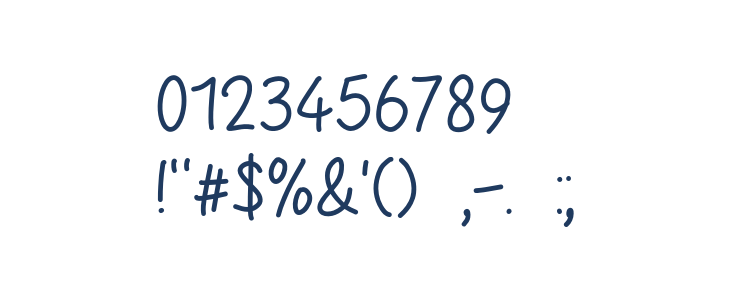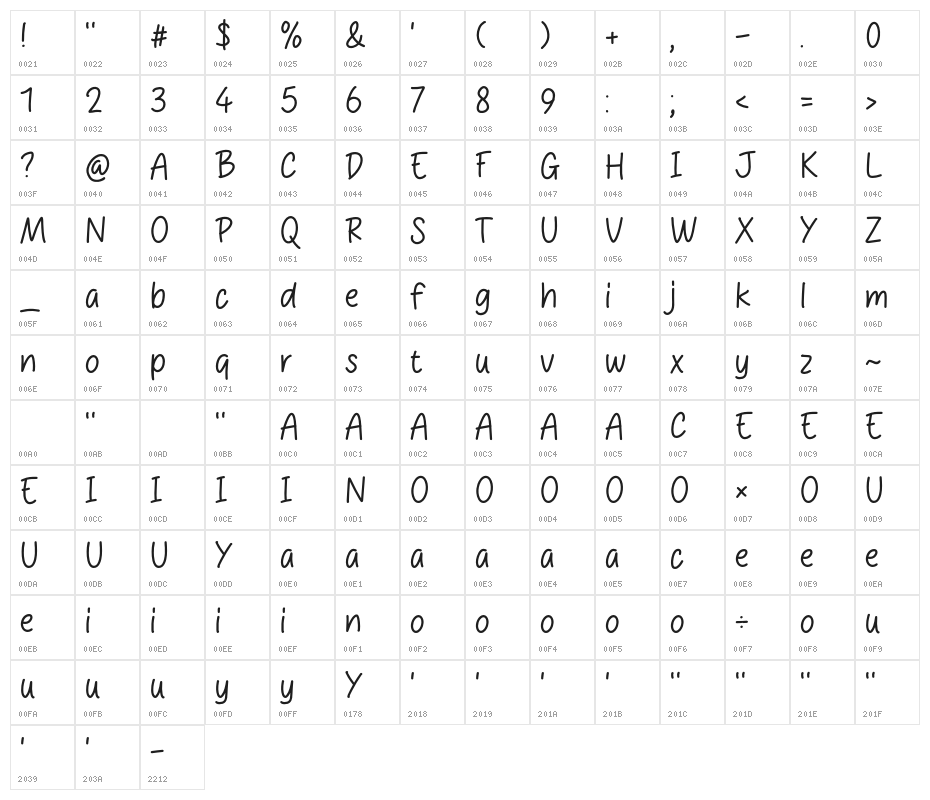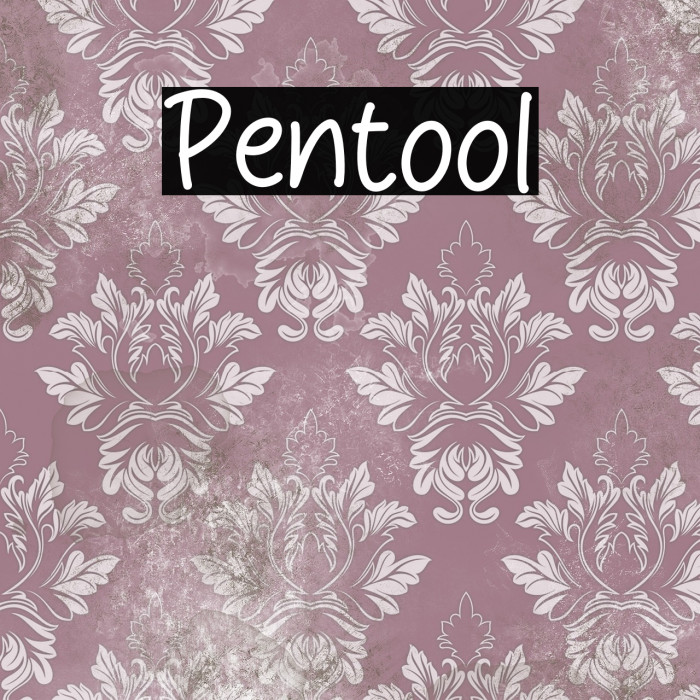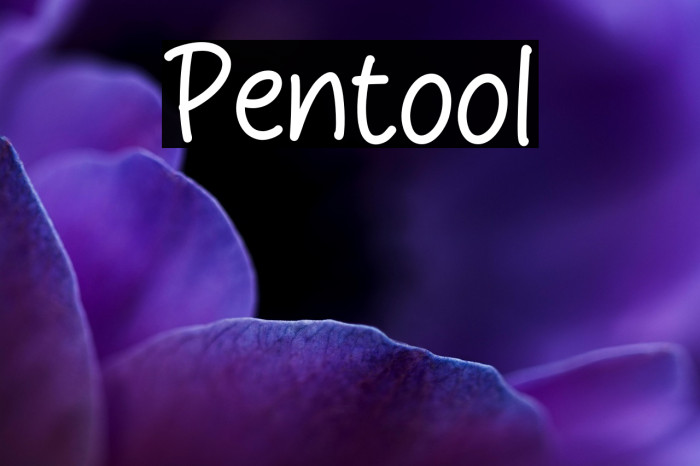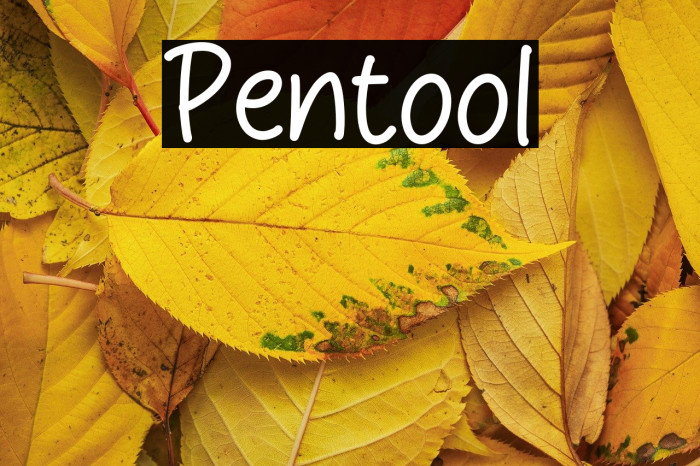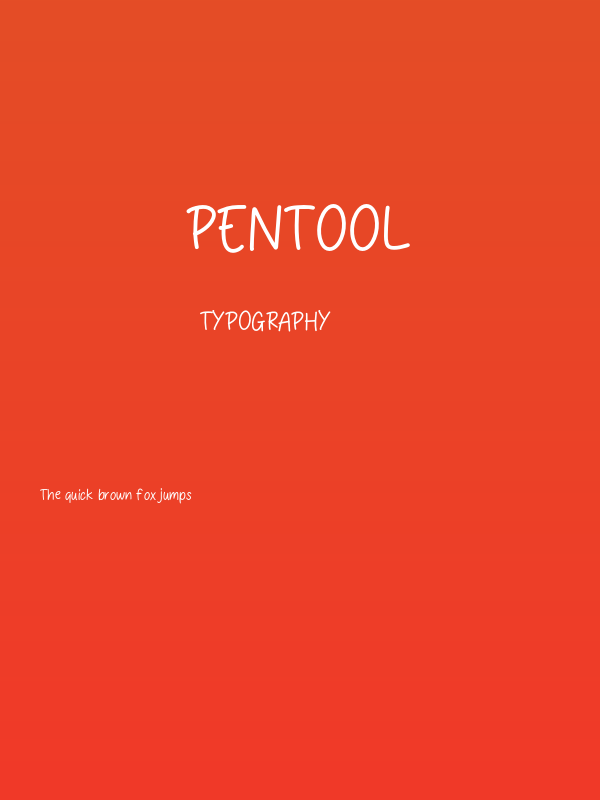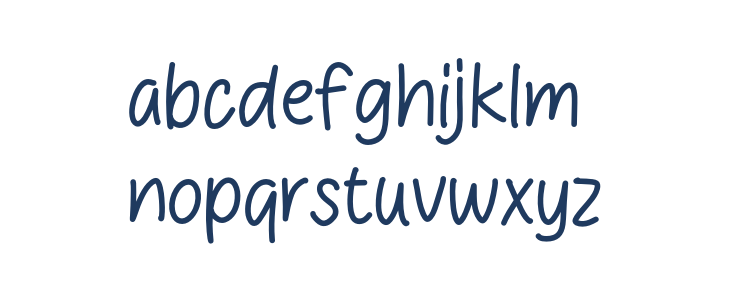
Pentool Font
Pentool Description
This font exudes a playful and casual handwritten style, characterized by its smooth, flowing lines and slightly irregular strokes that mimic natural handwriting. The letters are well-spaced, providing a clear and readable appearance, while maintaining a friendly and approachable vibe. The uppercase letters are slightly taller and more pronounced, while the lowercase letters maintain a consistent baseline, enhancing readability. The numerals and special characters follow the same style, ensuring a cohesive look across all text elements. This font is versatile, suitable for projects that require a personal touch or a relaxed, informal tone.
Overall StyleCasual
Use CaseLogos, Headlines, Informal text
Proposed ProjectsIdeal for greeting cards, personal blogs, children's books, and informal branding.